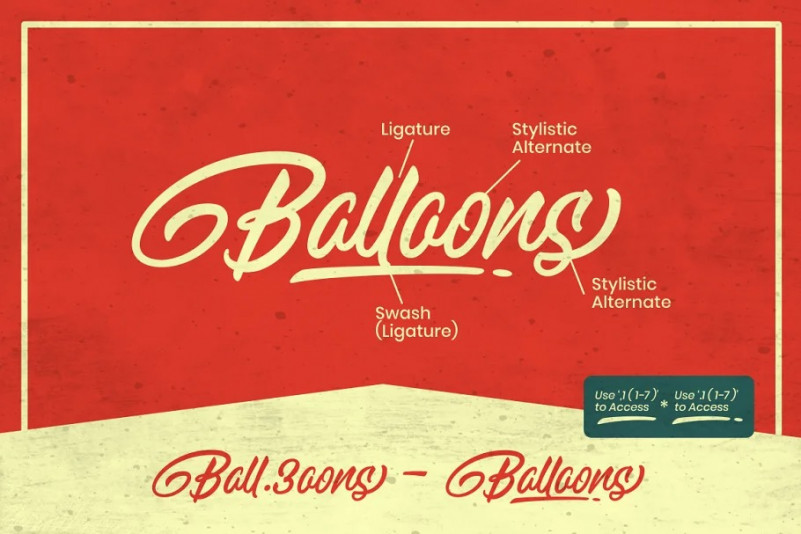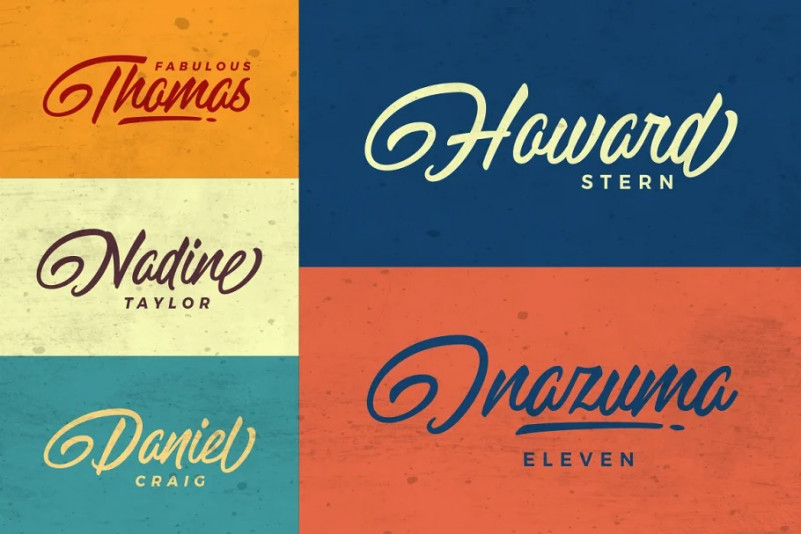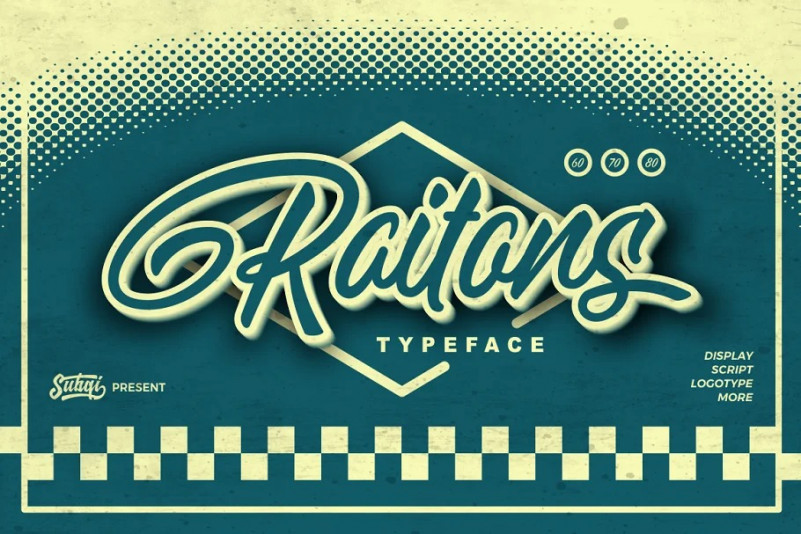
Raitons Font
It’s been awhile since my last font. So here is it.. my brand new font, Raitons. A display script font, perfect for many display purposes. Works well on both modern and vintage style. You can check the preview samples for trigger some ideas maybe.